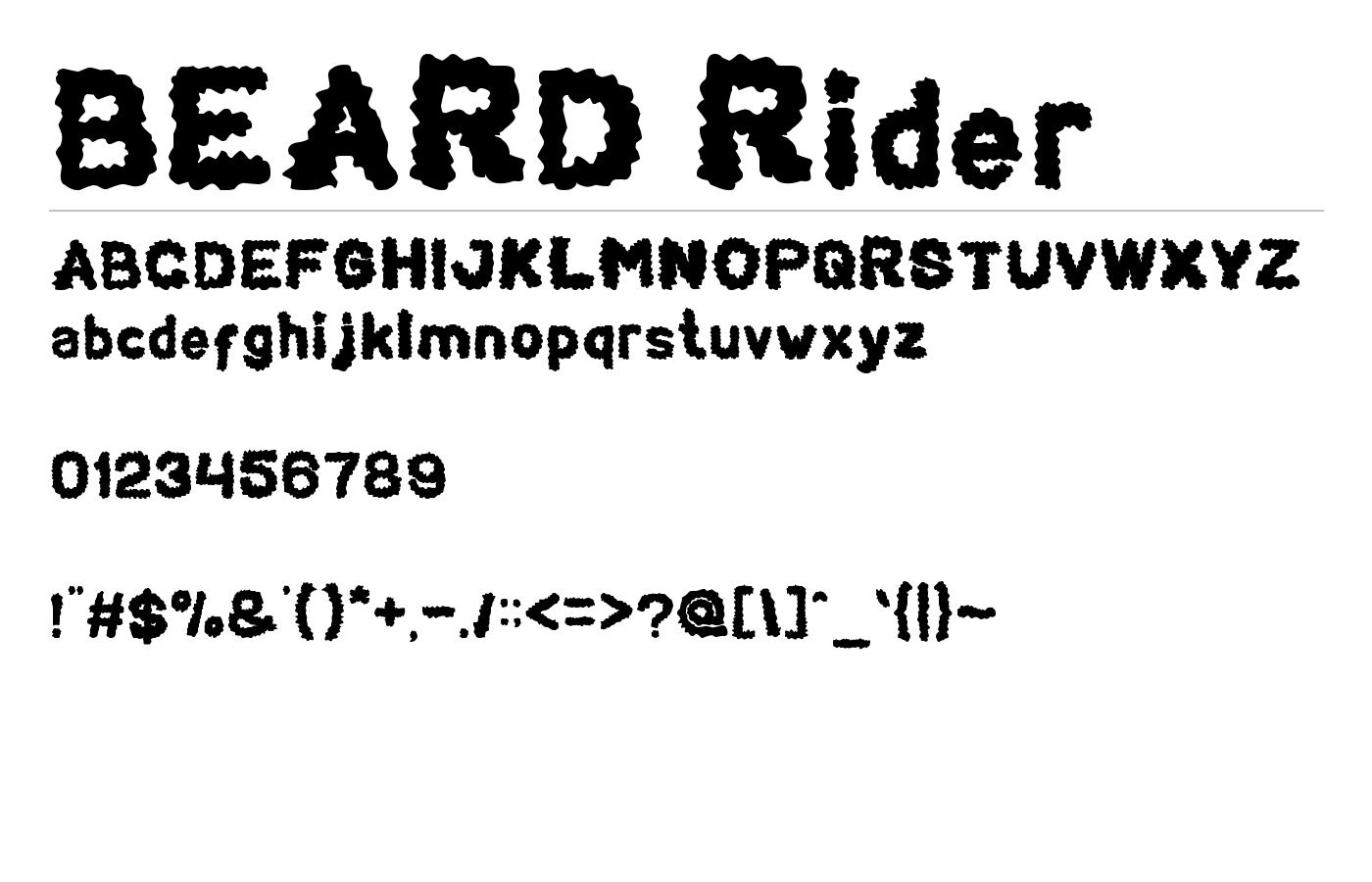
BEARD Rider is a bold, playful sans serif font featuring a textured, irregular edge that gives it a rugged, handcrafted feel. Its chunky letterforms with consistent weight and moderate spacing make it eye-catching and energetic, perfect for informal designs that want to stand out. This font works well for posters, logos, and branding that embrace a fun, adventurous spirit.